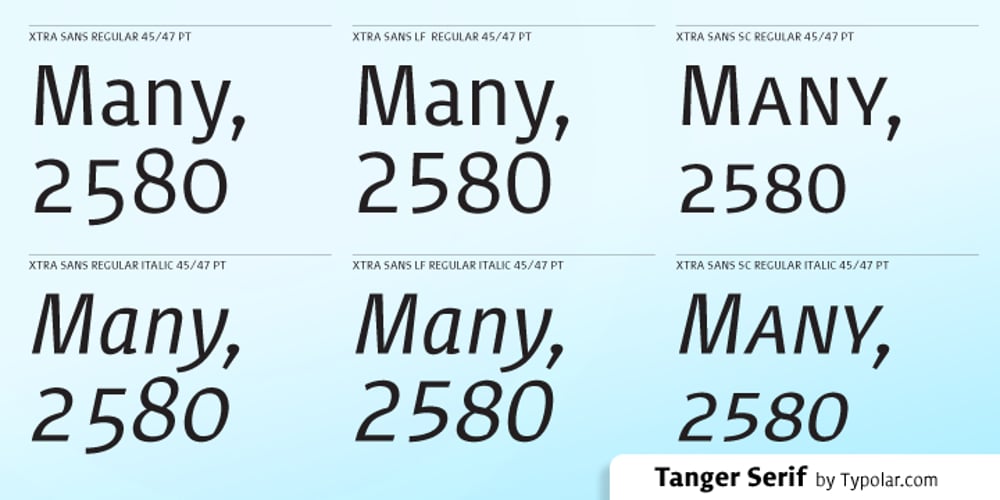
Xtra Sans
Xtra Sans font
Xtra Sans Font Family was designed by Jarno Lukkarila and published by Typolar. Xtra Sans contains 18 styles and family package options. In its characteristics Xtra Sans is a combination of modern grotesks/grotesques and traditional calligraphy. Its upright and compact letterforms generate a sturdy effect as in the early 20th century grotesks Nobel, Kabel or Erbar. On the contrary, dynamic inside forms (counters) give the characters a fluent appearance. As a result, Xtra Sans stands out in large size, while remaining highly legible in small and long text. In 2007 Xtra Sans received a Certificate of Excellence in Type Design from Type Directors Club, New York. In 2002, still unpublished, it was awarded a bronze prize at the Morisawa Awards, Tokyo.